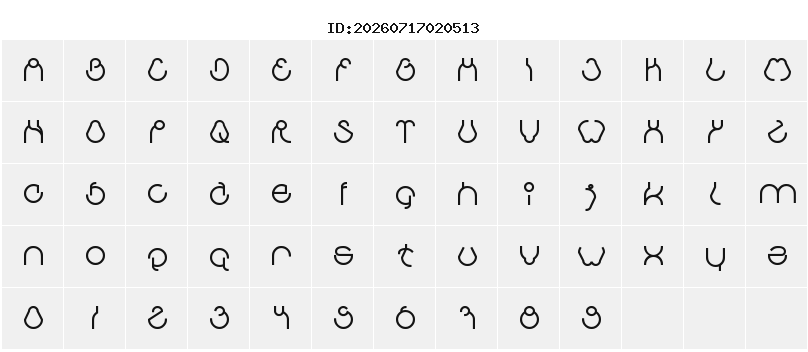
• Font Name: AHA EXPERIENCE
About AHA EXPERIENCE.ttf
AHA EXPERIENCE.ttf is a modern, elegant sans-serif font designed for ultimate readability and visual harmony. Perfect for branding, headlines, web design, and print materials.